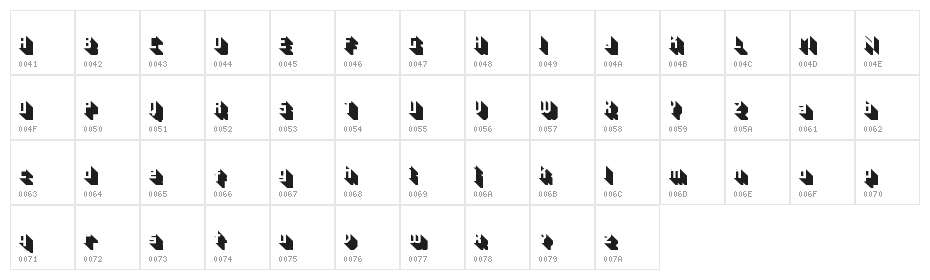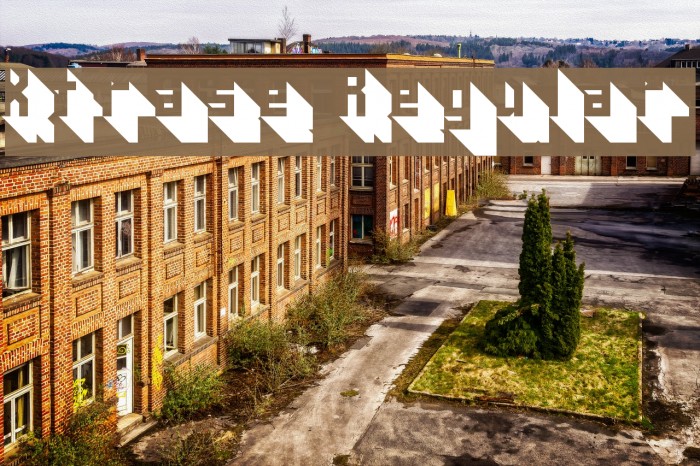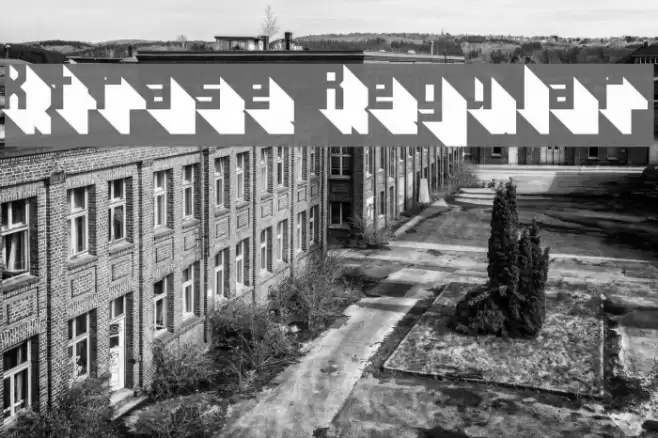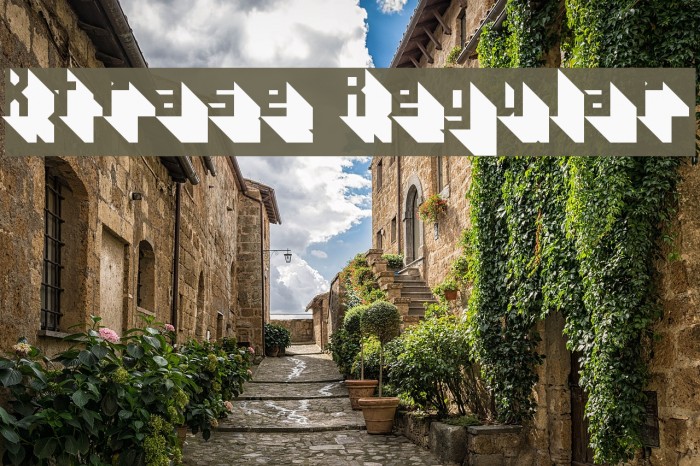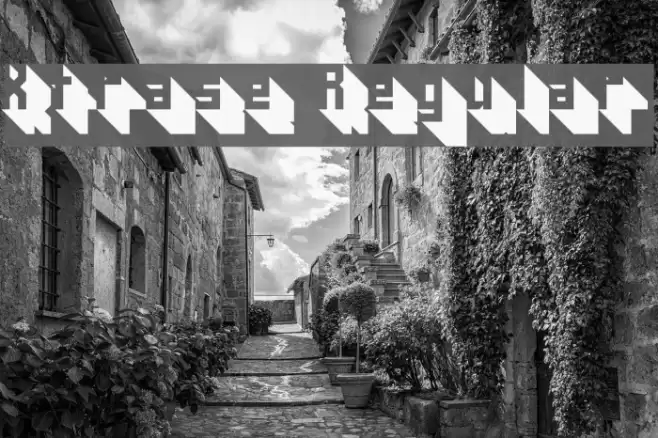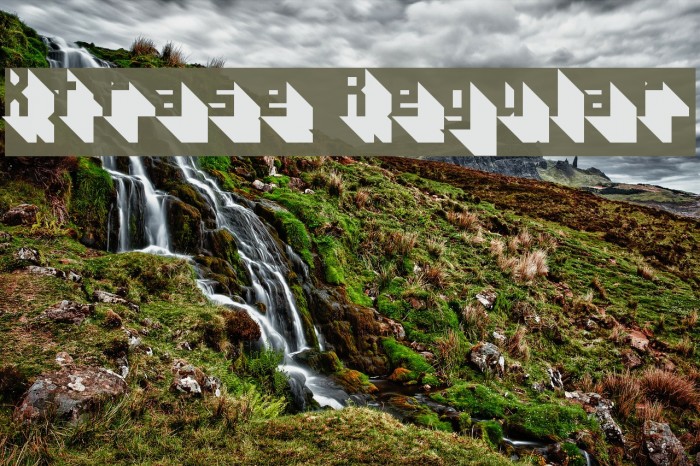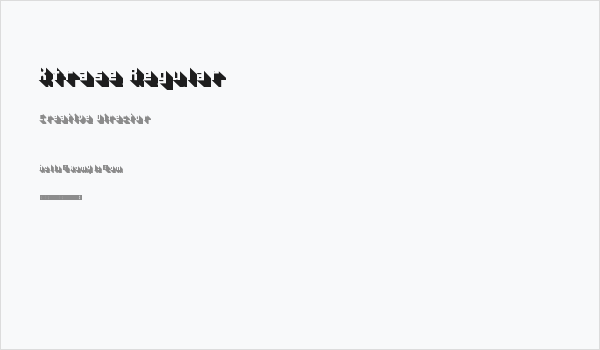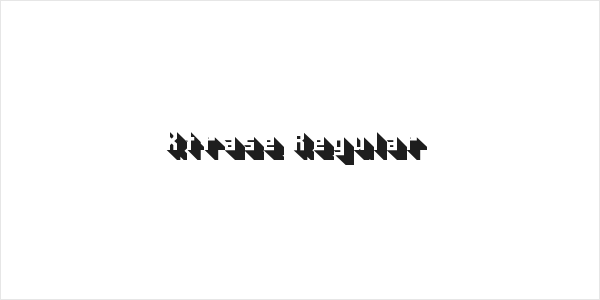
Xtrase Regular Font
Xtrase Regular Description
This font features a bold and striking 3D effect, with each character appearing to have a shadow that gives it depth and dimension. The geometric shapes are sharp and angular, creating a modern and futuristic look. The uppercase and lowercase letters maintain a consistent style, with each character having a unique and edgy appearance. The numbers and special characters follow the same design principles, ensuring a cohesive look across all elements. This font is perfect for projects that require a strong visual impact and a contemporary aesthetic.
| Proposed Projects | Ideal for posters, logos, video game graphics, and any design needing a bold, modern touch. |